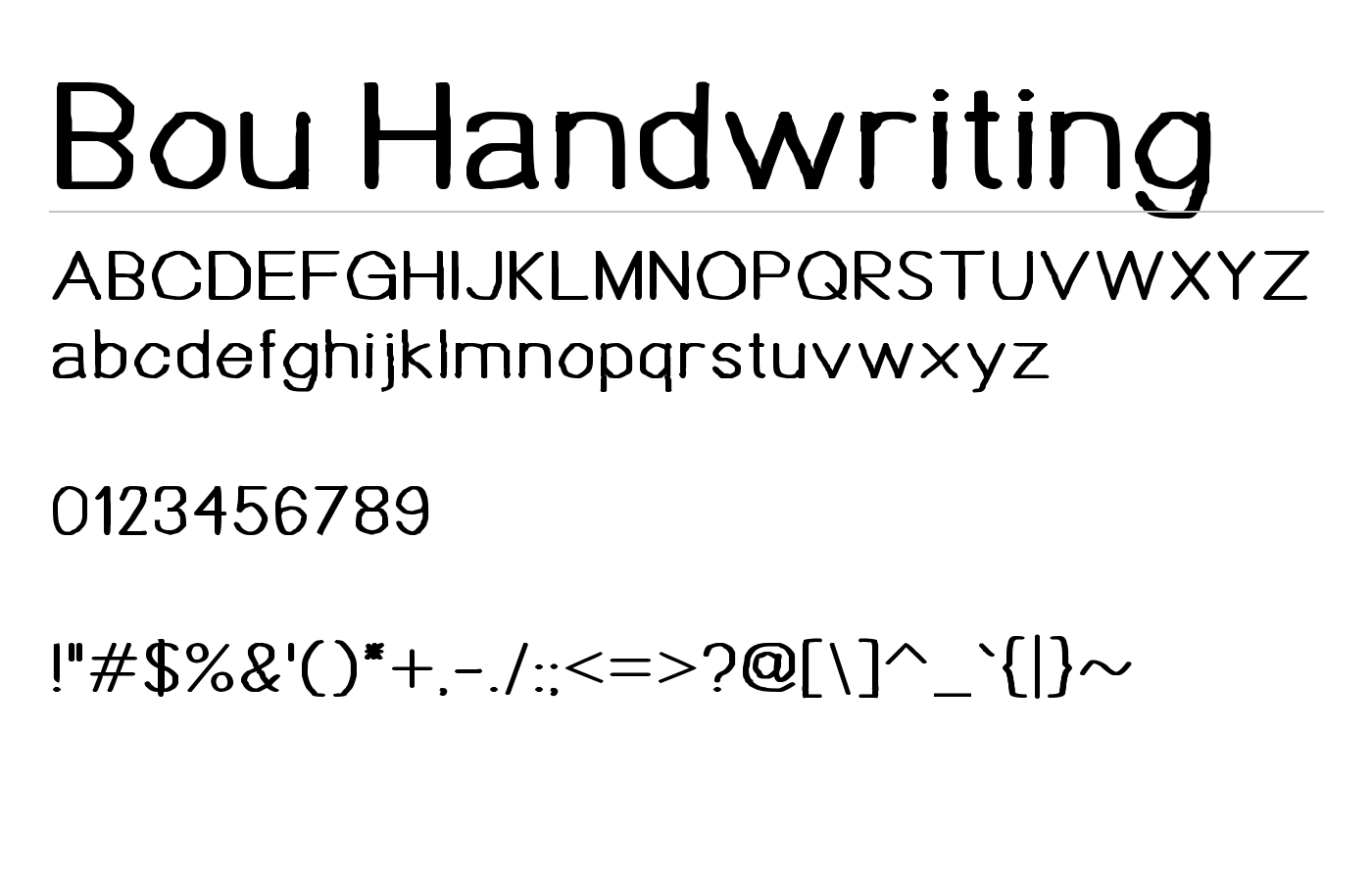
Bou Handwriting is a casual and friendly sans serif font that mimics neat, hand-drawn lettering with a slightly irregular, organic texture. Its narrow, lightweight strokes and modest x-height give it an approachable, informal feel perfect for personal projects, creative designs, or brands seeking a human touch without appearing overly playful. This font works well in headlines, invitations, and small blocks of text where a warm, handwritten style can add personality and charm.
Bou Handwriting Font
About Bou Handwriting Font